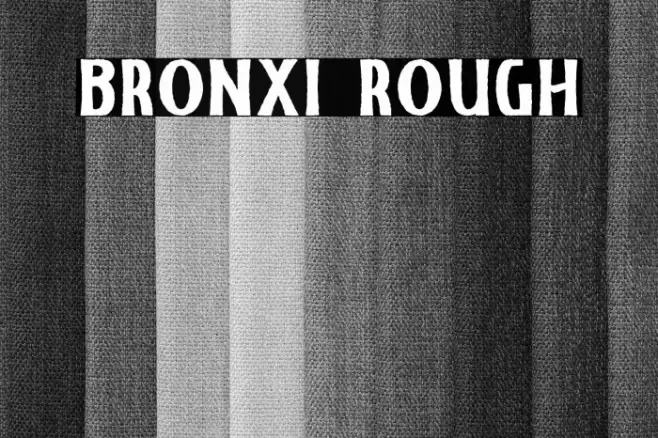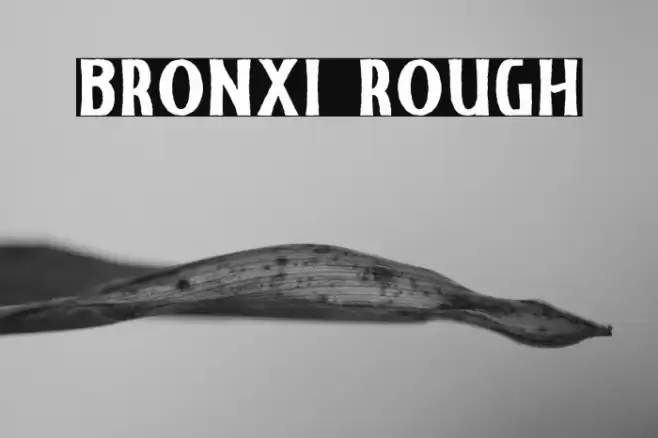
Bronxi Rough Font
Bronxi Rough Description
This font features a bold and rugged style with a distinctly rough texture, giving it a hand-crafted appearance. The uppercase letters are prominent and slightly condensed, with unique serifs that add character and flair. The numbers and special characters maintain the same boldness and rough texture, ensuring consistency across all characters. The font's design suggests a vintage or rustic feel, making it ideal for projects that require a touch of authenticity and personality. Its rough edges and bold strokes make it stand out, perfect for eye-catching designs.
A bold, rough-textured font with a vintage, hand-crafted feel from Uncategorized fonts.
- Proposed Projects: Ideal for branding, posters, packaging, and any design requiring a rustic or vintage touch.
- Overall Style: Vintage